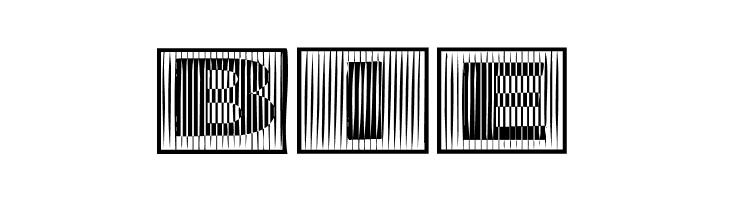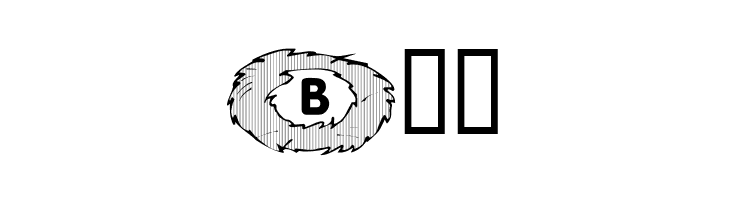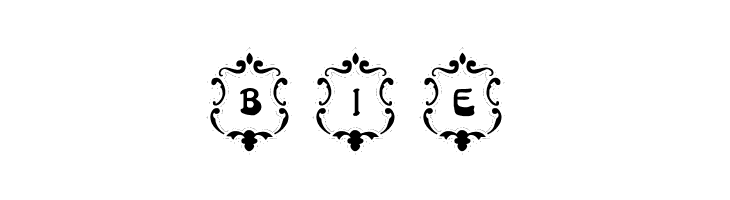
A decorative font with characters embedded in grand piano silhouettes, ideal for music-themed designs.
An elegant, decorative font with intricate vine-like borders around each character.
A playful, balloon-inspired decorative font with interconnected circular shapes.
A decorative font with a barcode-inspired design, featuring characters enclosed in rectangular frames.
A decorative font with uppercase letters and numbers in a bird's nest style.